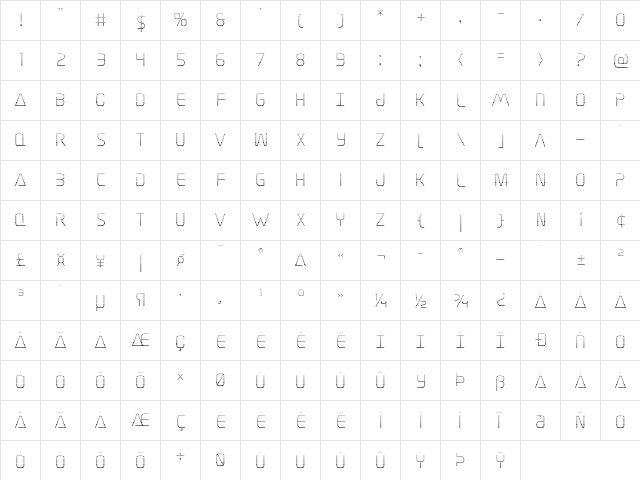
Elite Danger Gradient Regular
Design Context for Elite Danger Gradient Typeface
Elite Danger Gradient takes a measured approach to typography — its balanced proportions and neutral character make it a reliable workhorse for both digital and print work.
Pro Tip: Use Elite Danger Gradient in both headline and body roles to test its range before committing to a single application.